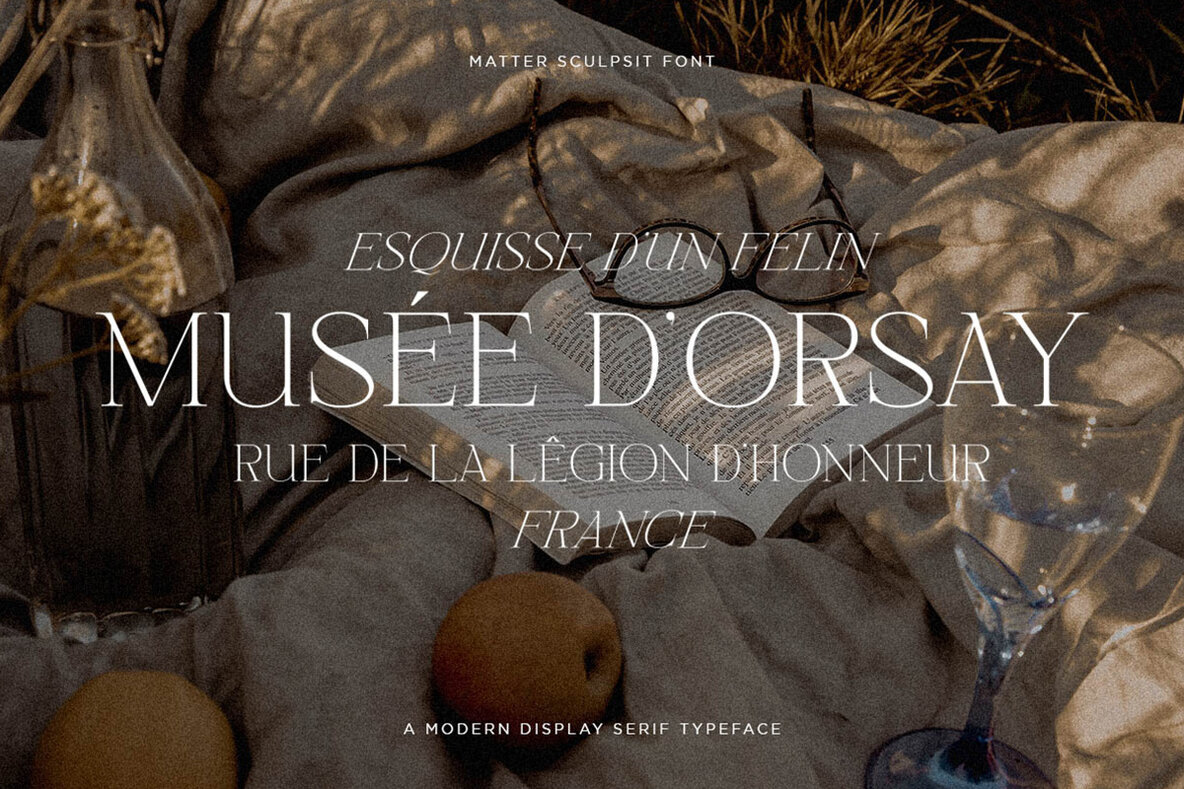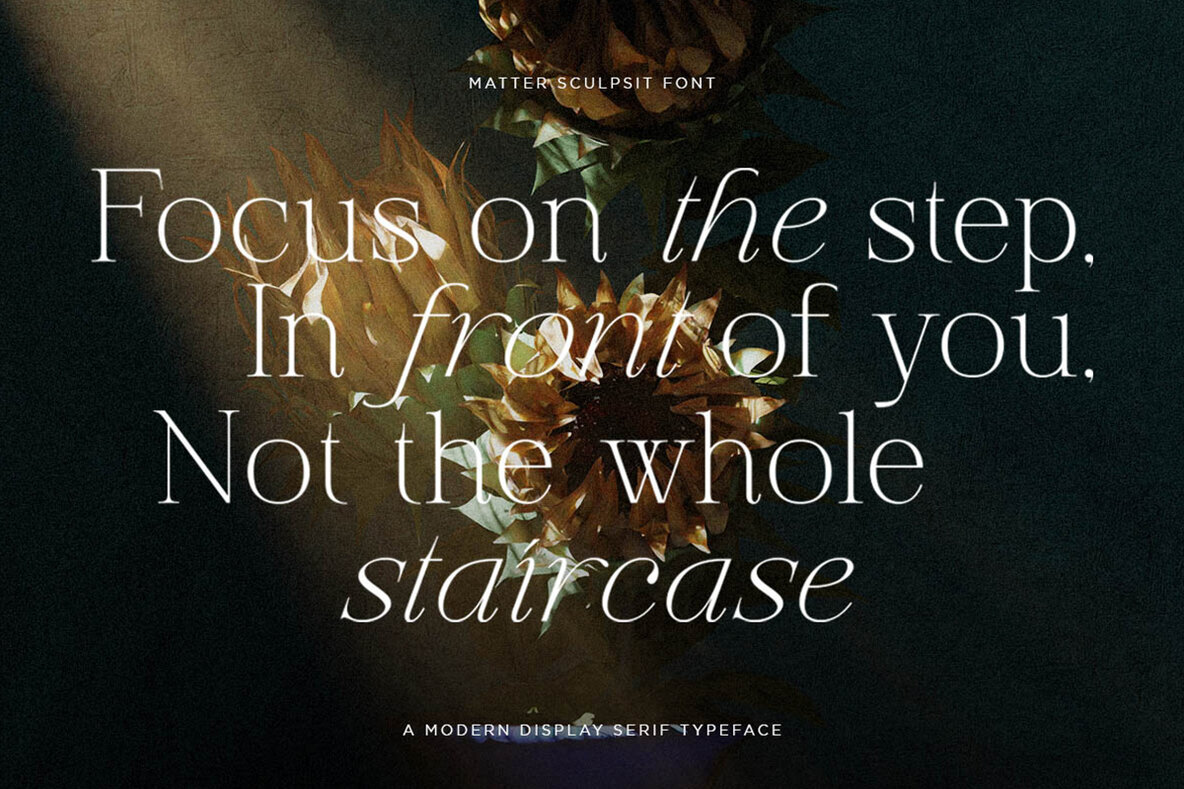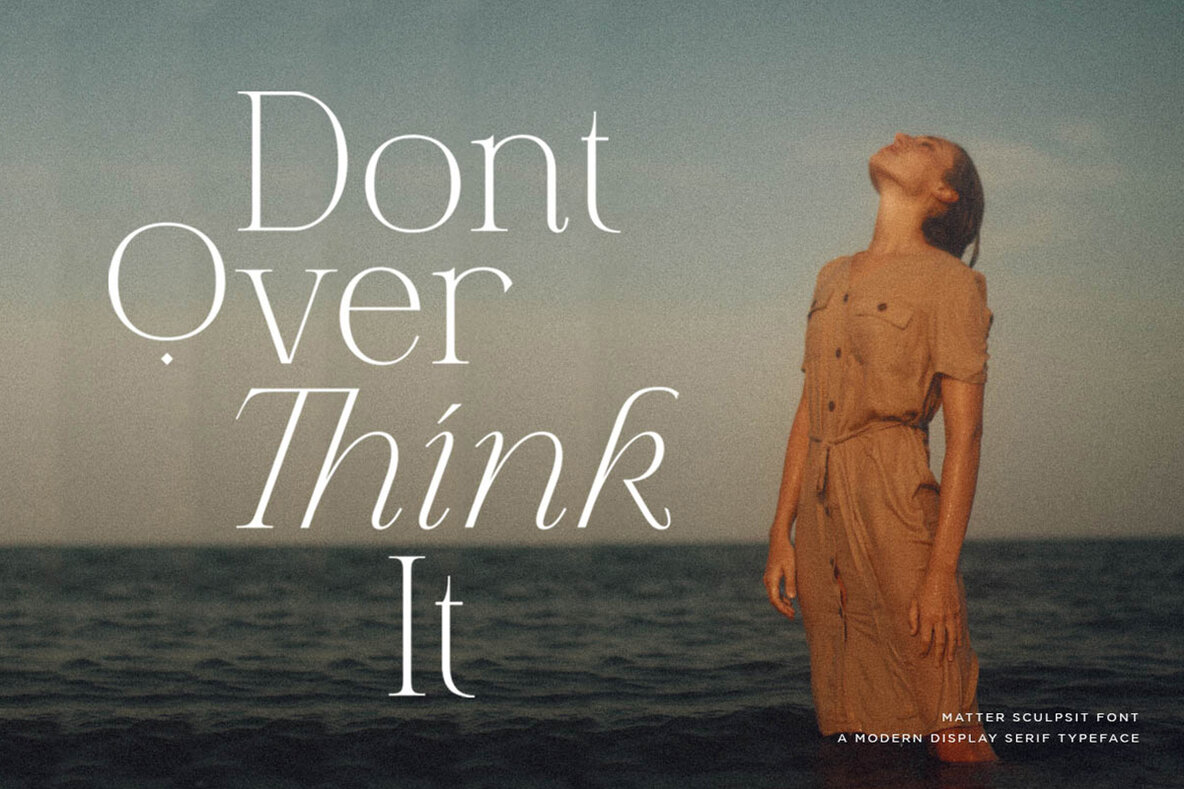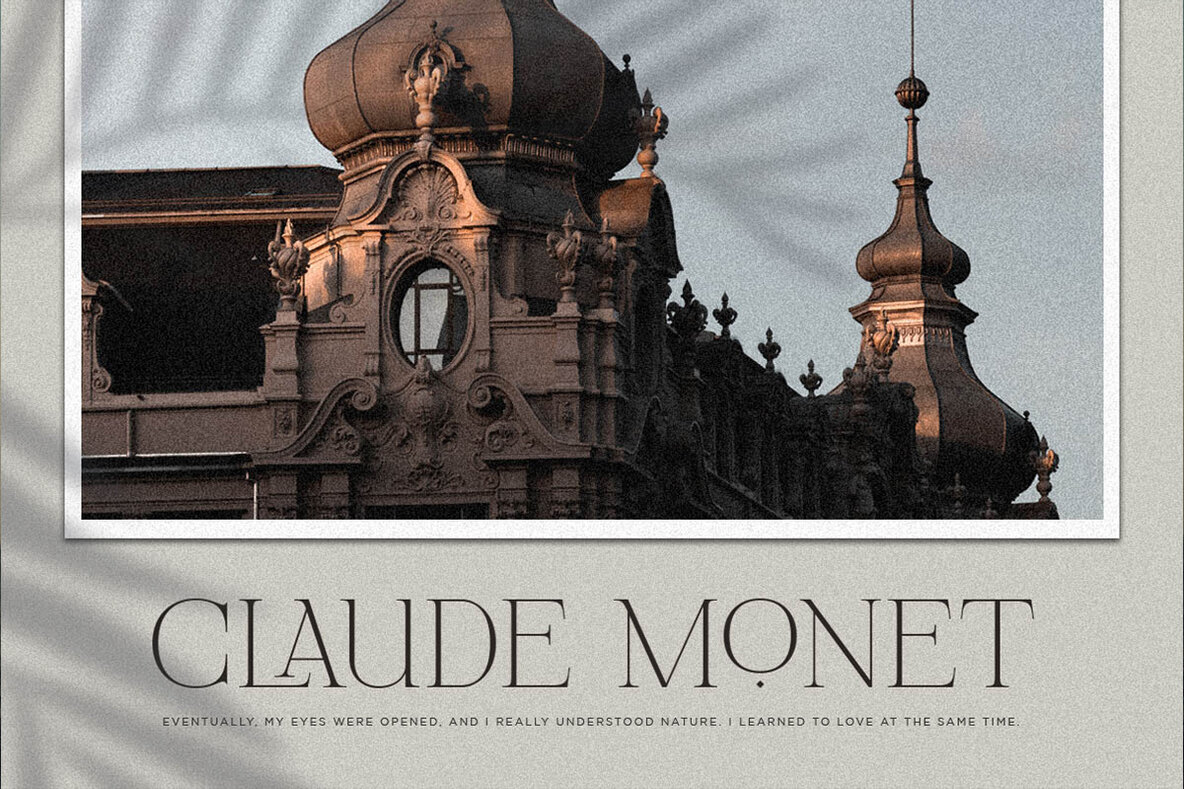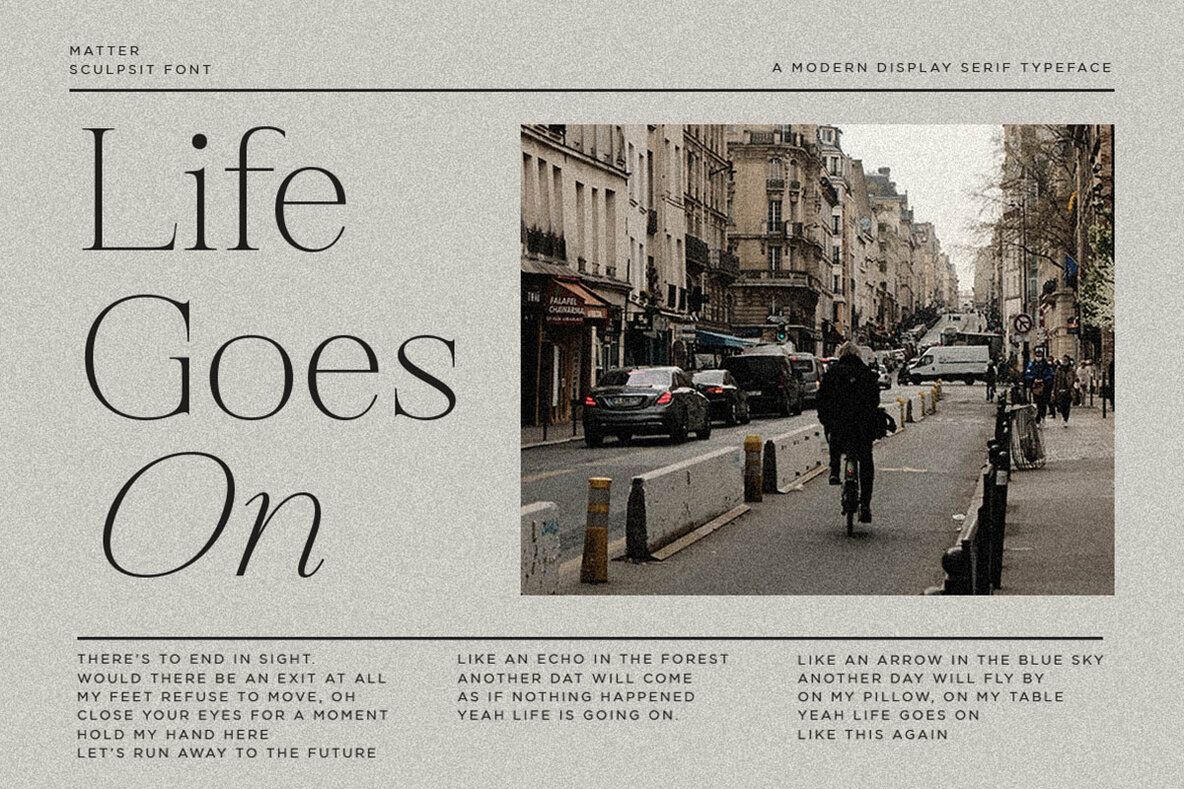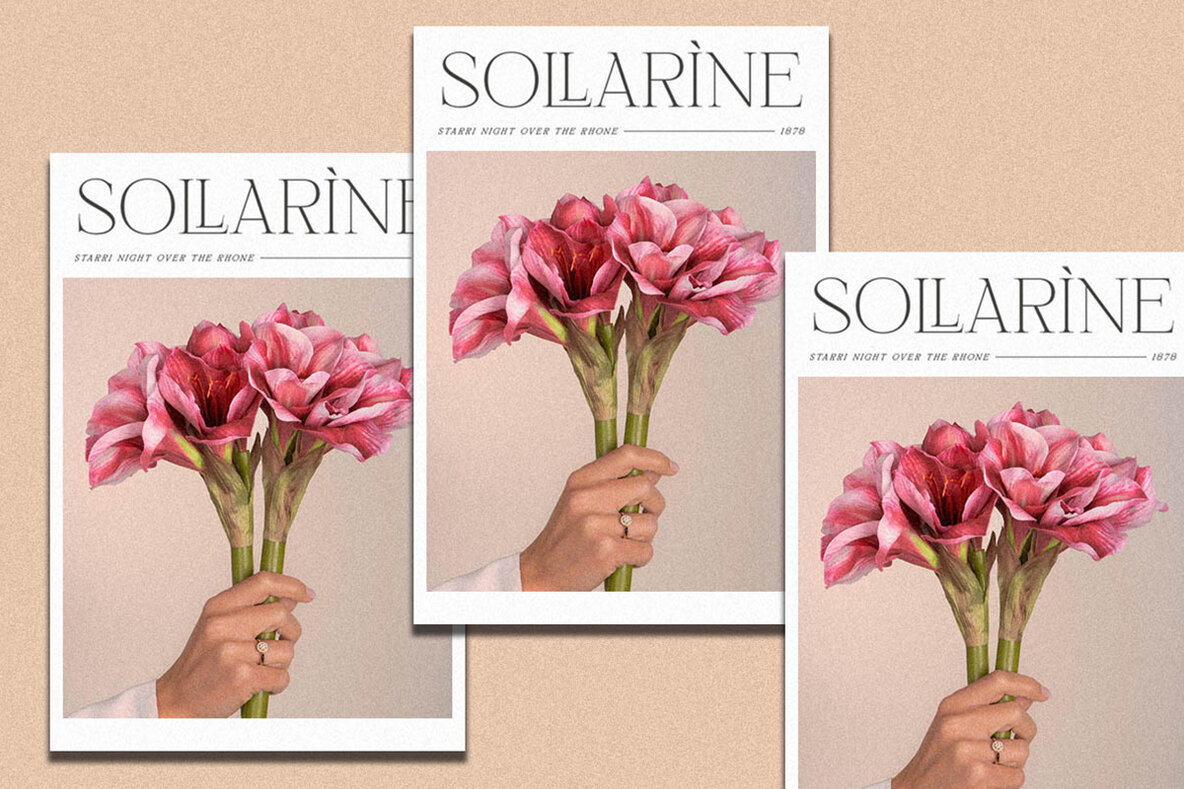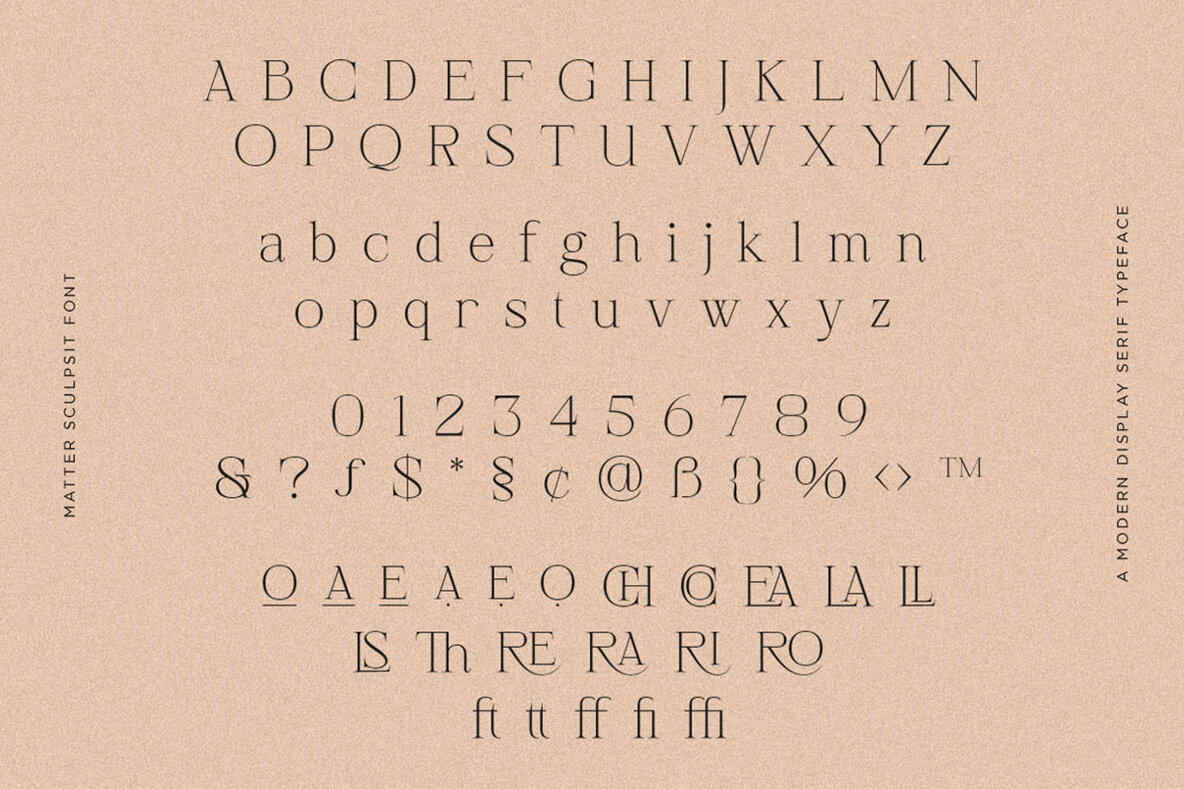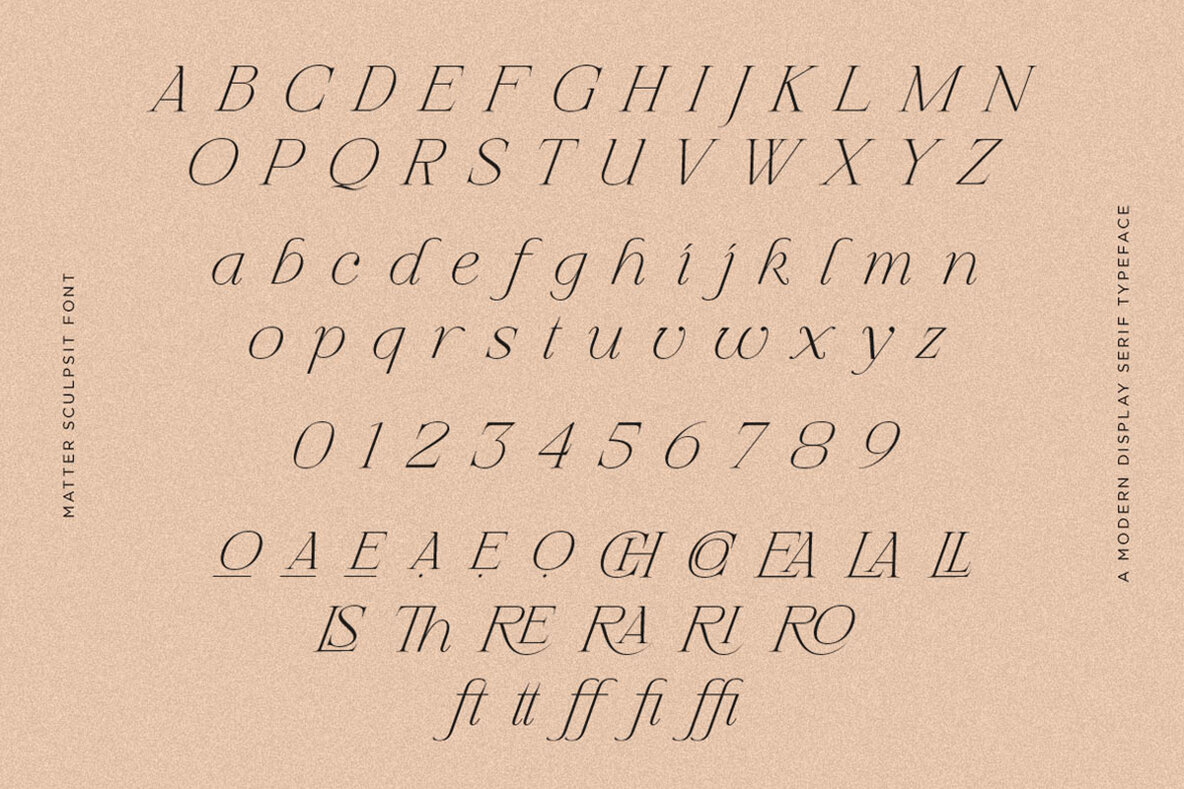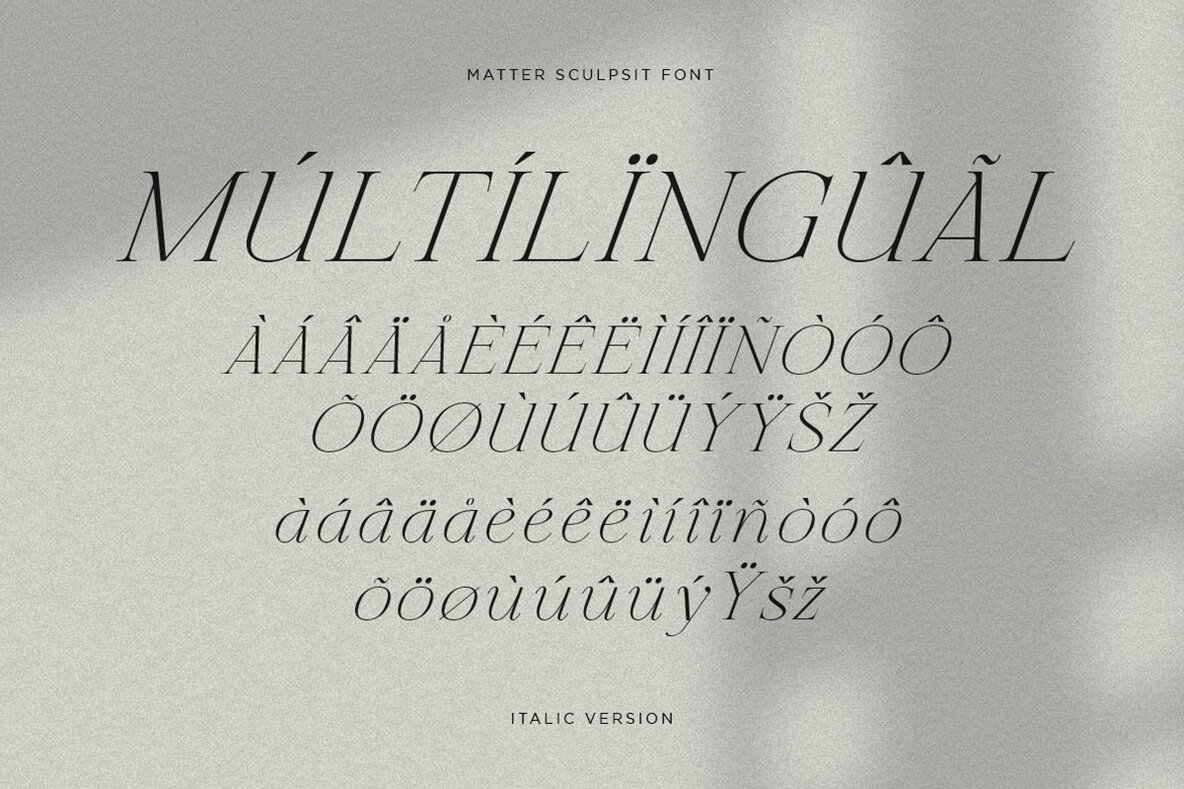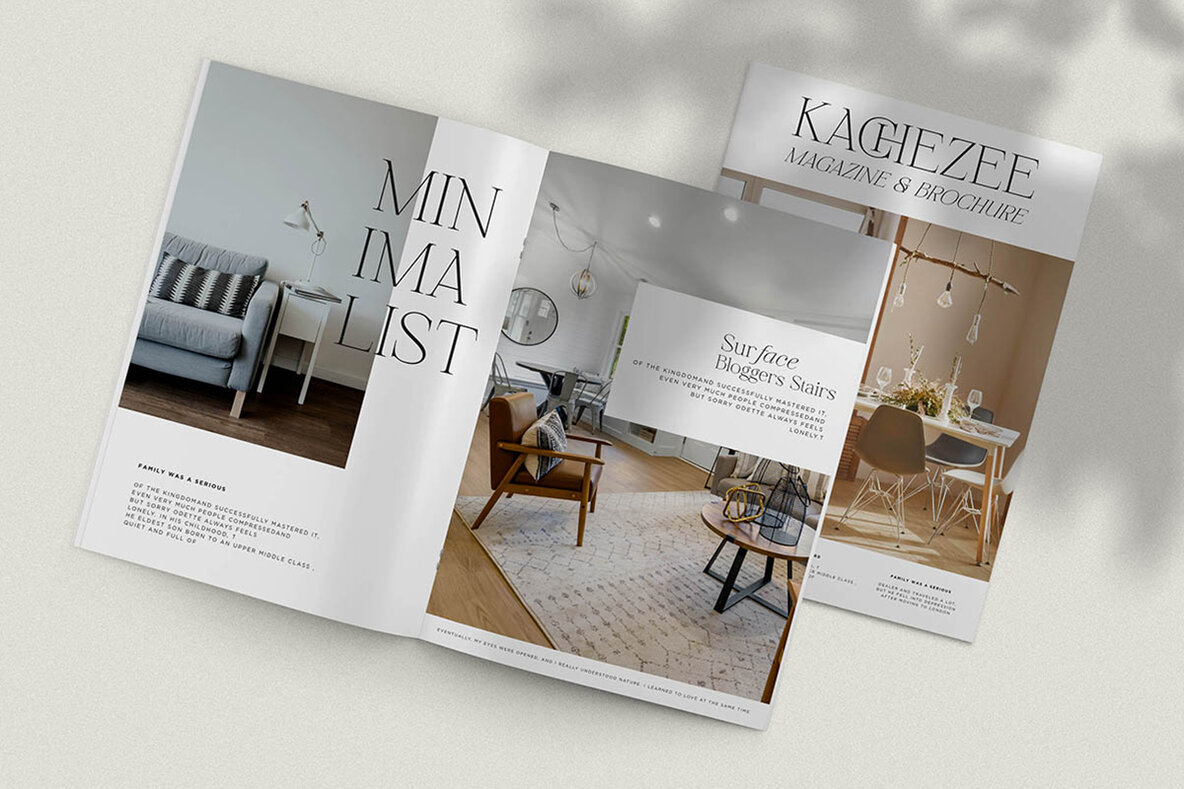
Matter Sculpsit Font
Matter Sculpit Regular
Matter Sculpit Italic
Drawing inspiration from both classic serif traditions and contemporary aesthetics, Matter Sculpsit by Pentagonistudio represents a sophisticated choice for designers aiming to bridge the past and present. Ideal for a range of projects, this serif font effortlessly complements modern designs with its elegant ligature characters. For licensing inquiries beyond desktop use or to explore further customization options, please contact us. Keep an eye out for future updates from Pentagonistudio, which will include additional glyphs and expanded language support.Matter Sculpsit: Classic Serif with a Modern Twist